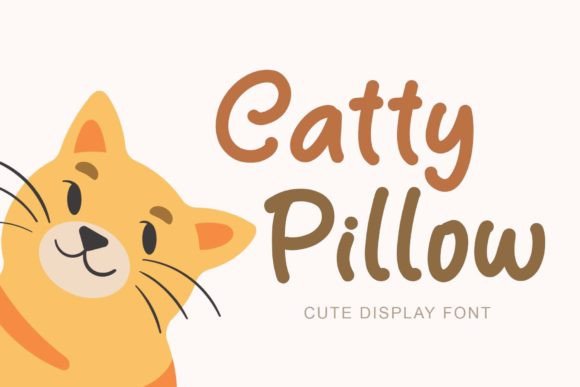
Catty Pillow
Finding the right design elements can be challenging, but Catty Pillow offers an exceptional collection that elevates your work instantly.
Whether you are creating POD (Print on Demand) products, wedding invitations, or social media graphics, Catty Pillow is an ideal fit.